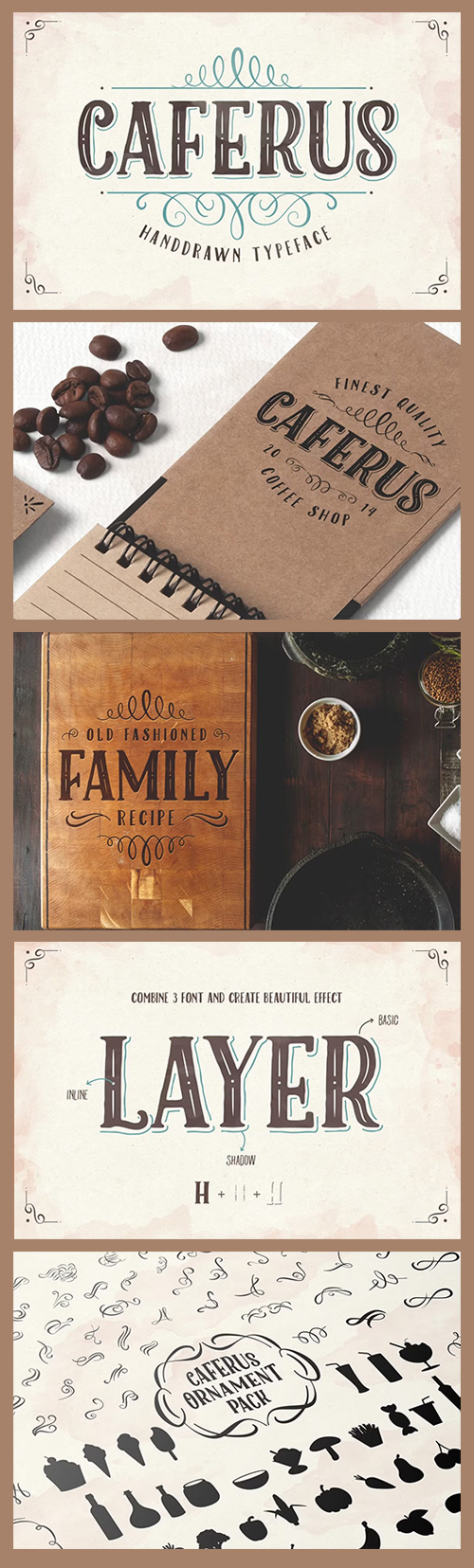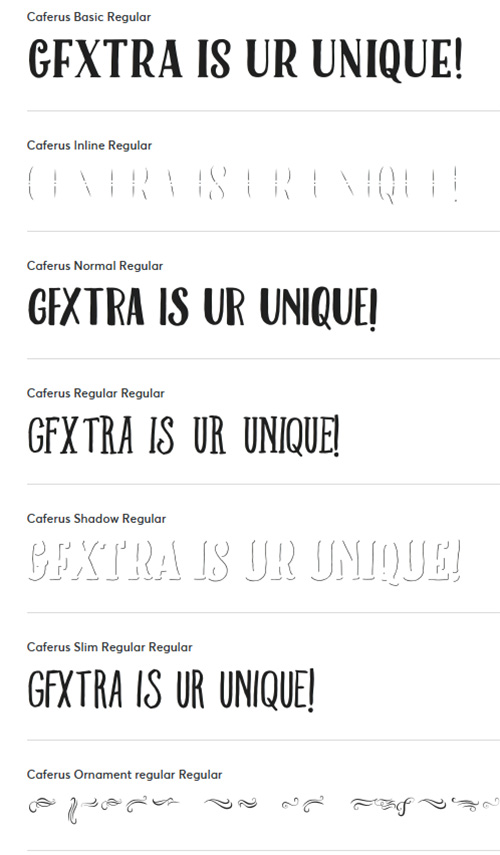
- Hello There, We're back again with the new Fonts. But not only one font as our recent product, We create a FontPack !!!
- 4 Creative handmade Fonts that it have Layered Fonts and sub-families fonts.
- Are you confusing for choosing fonts for combine with each other to your layout? Dont be worry, We deliver this fonts with Display layered font, serif, sans-serif with different weight, and Ornament Fonts !!. Of course your work is more easier with Caferus Fonts.Caferus inspired by the lettering on vintage cafe, and its designed for the cafe and restaurant who used vintage concept cafe.